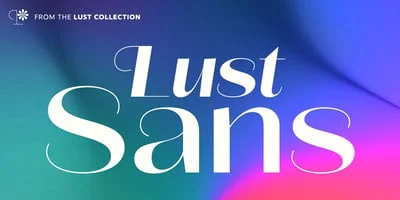
Lust Sans Font
Lust Sans Font is passionately designed for luxury fashion branding, high-end cosmetic packaging, sensual fragrance campaigns, upscale jewelry advertising, premium lingerie communications, sophisticated beauty salons, romantic lifestyle magazines, and elegant intimate apparel marketing. This alluring typeface excels in environments requiring sensual sophistication and luxurious appeal, making it perfect for fashion houses, beauty brands, luxury retailers, and any business needing to communicate desire and premium elegance through distinctive typography.
What makes Lust Sans Font so exciting is its sophisticated ability to capture luxury desire and sensual elegance through letterforms that exude confident allure and premium sophistication without compromising professional credibility. The font features elegantly crafted characters with refined curves and luxurious proportions that reflect the sophisticated aesthetics of high-end fashion and the alluring appeal of premium beauty products. Its luxurious construction and sophisticated character make it incredibly effective for brands wanting to communicate premium quality, elegant desire, and luxury sophistication while appealing to discerning audiences who appreciate refined aesthetics and luxury experiences.
Lust Sans Font typically includes multiple weights and styles such as Thin, Light, Regular, Medium, and Bold, often accompanied by elegant italic variations that enhance its sophisticated appeal. The font family frequently features additional character sets including luxury symbols, fashion icons, and elegant glyphs that enhance its premium aesthetic. Each weight maintains the font's distinctive luxurious character while offering different levels of sophisticated emphasis, providing designers with comprehensive tools for creating premium brand identities and luxury-focused communication materials.
Luxury brand professionals will discover that Lust Sans Font delivers outstanding performance in both high-end fashion applications and premium beauty marketing materials requiring sophisticated credibility. The font's carefully crafted character set includes luxury-appropriate letterforms, fashion symbols, and elegant elements essential for premium branding, luxury product packaging, and sophisticated communications. Its refined design makes it particularly effective for fashion houses, luxury cosmetics, premium retail, and elegance-oriented marketing campaigns requiring authentic luxury presence.
The meticulous attention to luxury proportions and sophisticated spacing ensures that Lust Sans Font maintains excellent readability while delivering maximum premium impact. Its elegance-inspired design language makes it particularly effective for fashion applications, luxury beauty, premium retail, and sophisticated lifestyle communications. The font's alluring appearance creates strong luxury connections while remaining highly functional for projects requiring clear communication to fashion-conscious audiences and luxury lifestyle enthusiasts.
For designers seeking a typeface that embodies luxury sophistication with elegant allure, Lust Sans Font represents an exceptional choice that will elevate any project with its distinctive refinement and premium character.